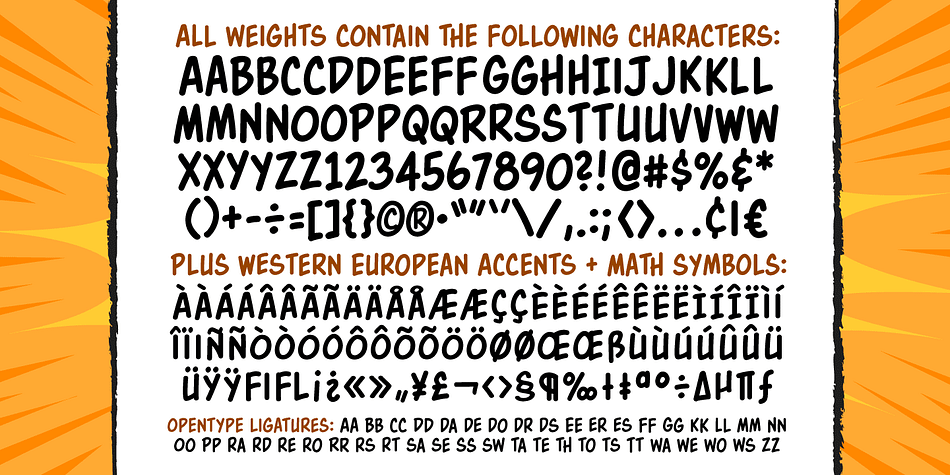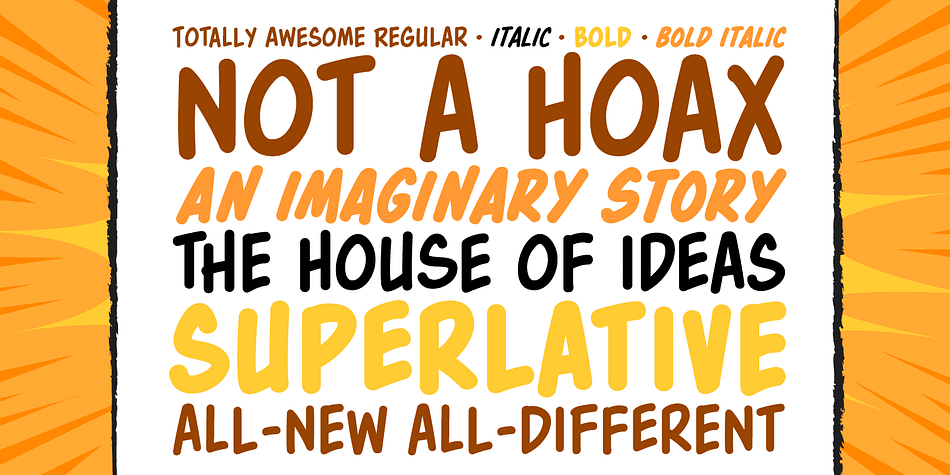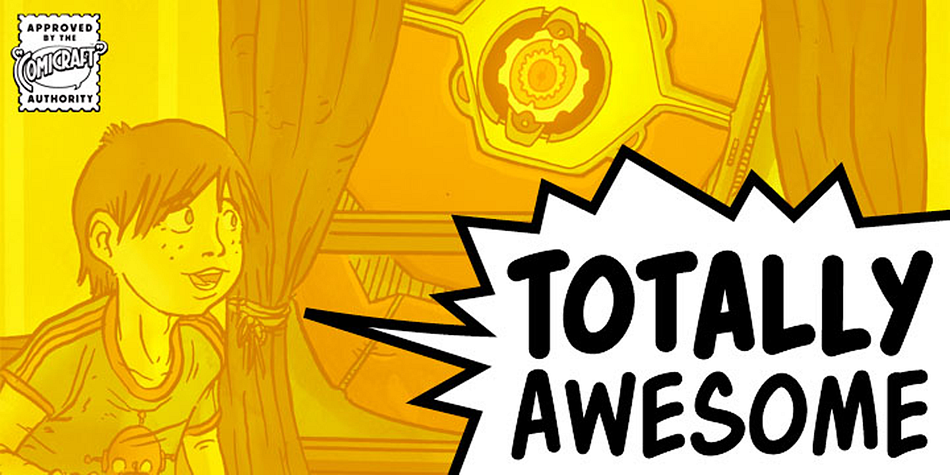
Designed by John Roshell, Totally Awesome is a comic and hand display font family. This typeface has four styles and was published by Comicraft.
Our newest release is so Totally Awesome, we haven’t even found a good NAME for it yet! It’s the kind of font you’ll splash all over your covers and title pages to call out FINAL BATTLES WHEN ALL-NEW ALL-DIFFERENT TITANS CLASH! It’s gonna grab your readers and pull them into your own special house of ideas! The story this font wants to tell you is NOT a what if?, NOT a hoax, not an imaginary story. It didn’t come BEFORE ELEPHANTMEN, AFTER ELEPHANTMEN or anywhere inbetween! It’s Uncanny, it’s Amazing, it’s Incredible, Invincible, it’s Mighty, Superlative and Wondrous. It’s ready to Assemble, it’s TOTALLY AWESOME!